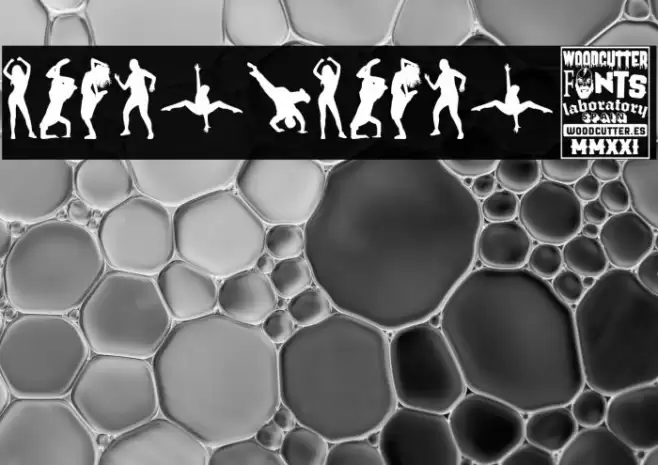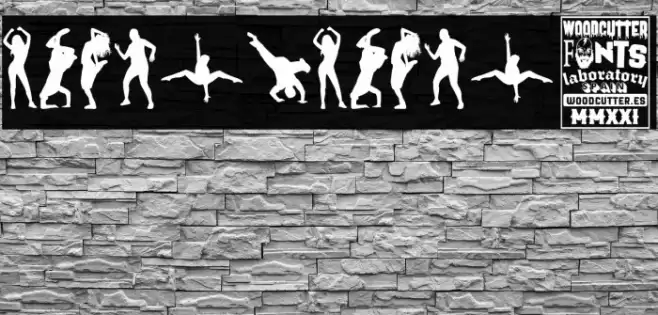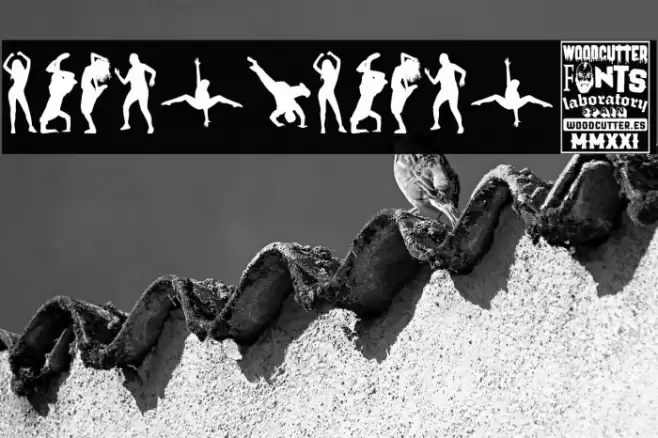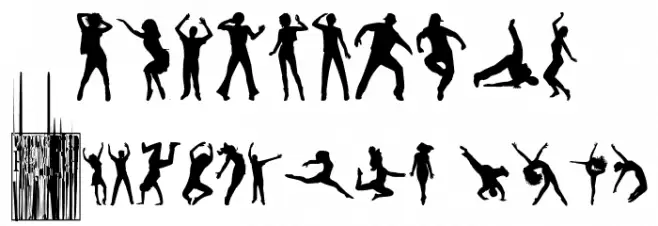
Dance,Dance! Font
Dance,Dance! Description
A decorative display font composed entirely of black silhouette figures in various dynamic dance poses, capturing movement and energy without traditional letterforms.
A decorative font using dancing human silhouettes as characters from Dingbats fonts.
- Proposed Projects: Event posters, dance studio branding, party invitations, entertainment industry graphics, and creative display uses.
- Overall Style: Energetic, playful, and dynamic
- Use Case: Headlines, logos, and decorative display text where a dance or movement theme is desired